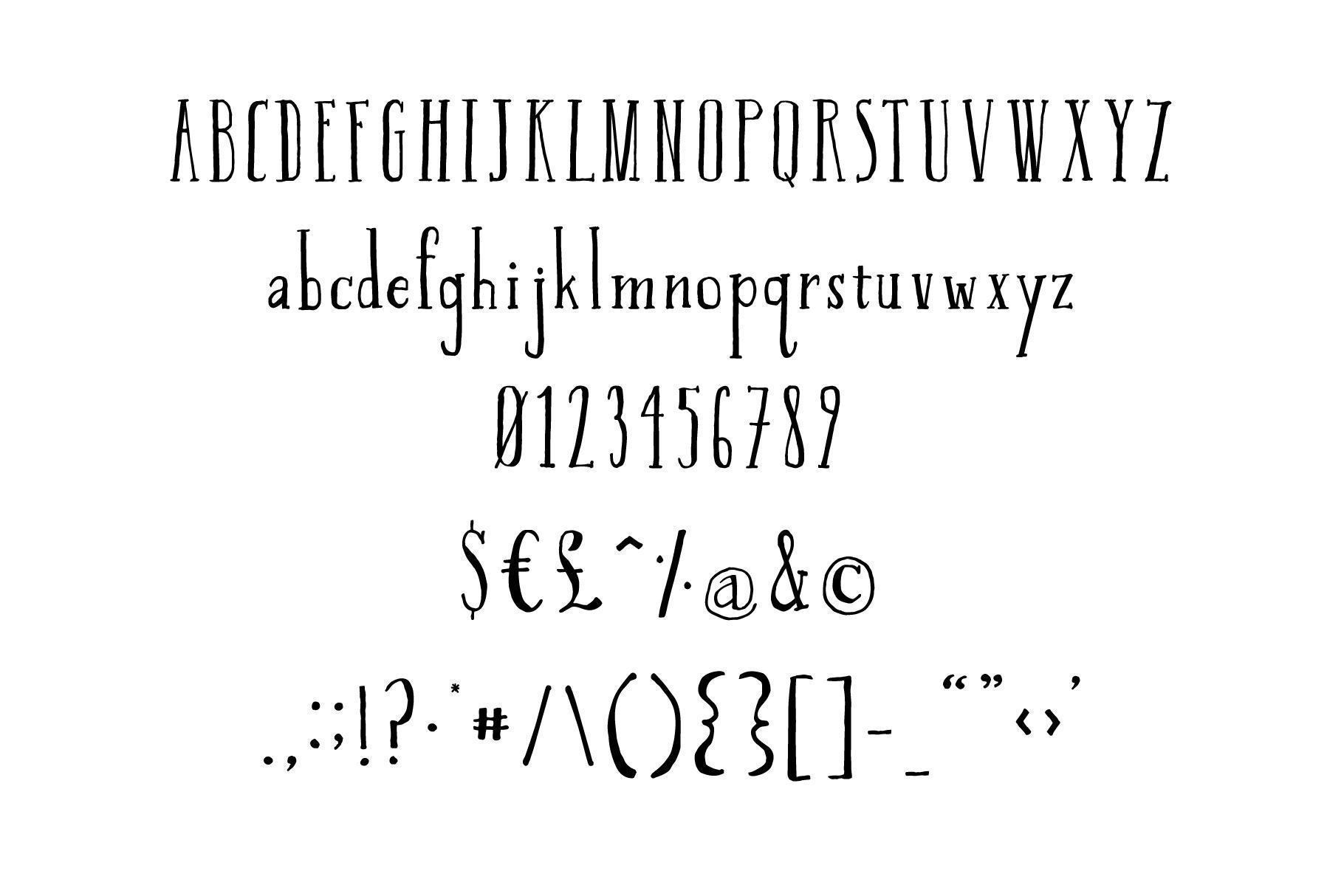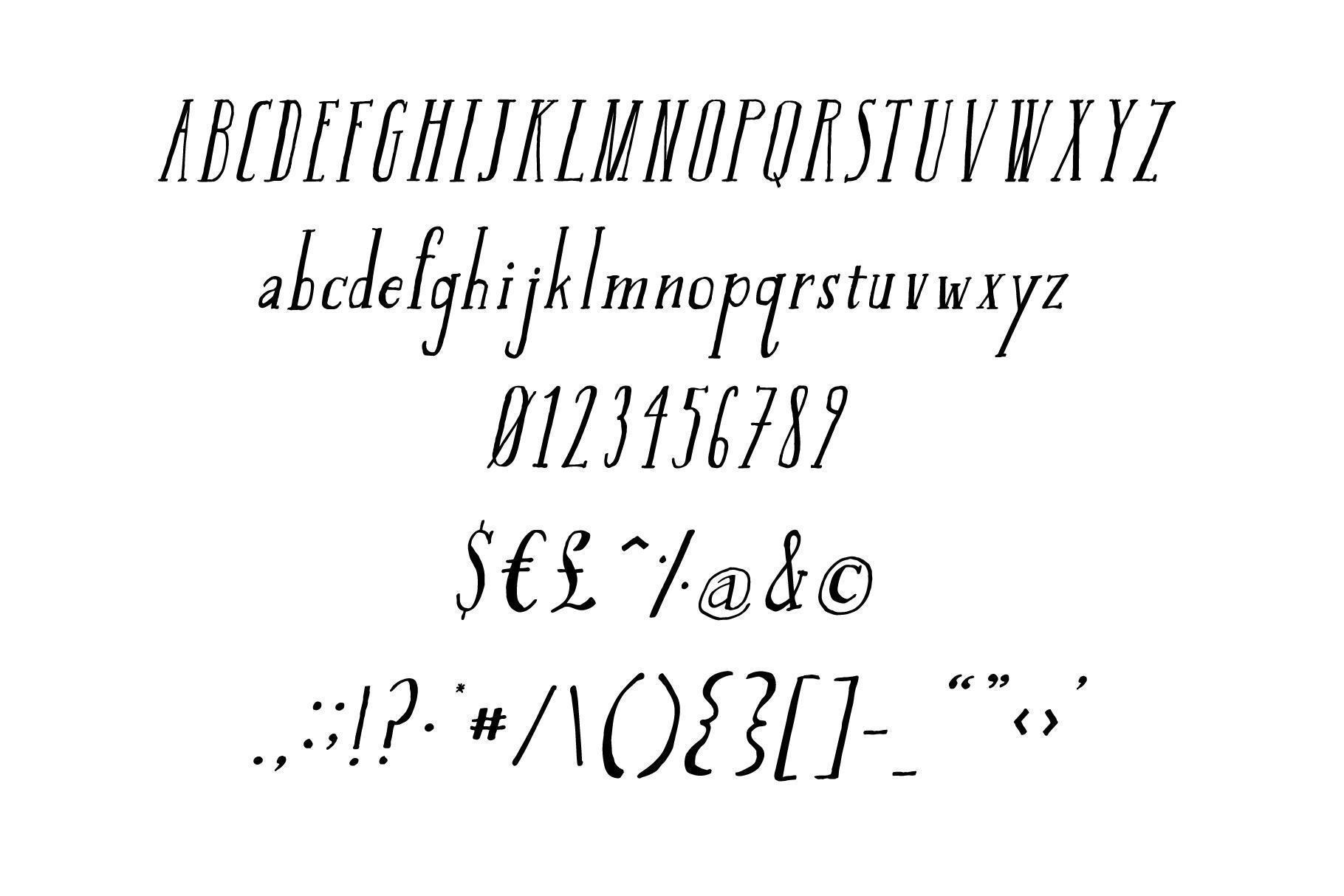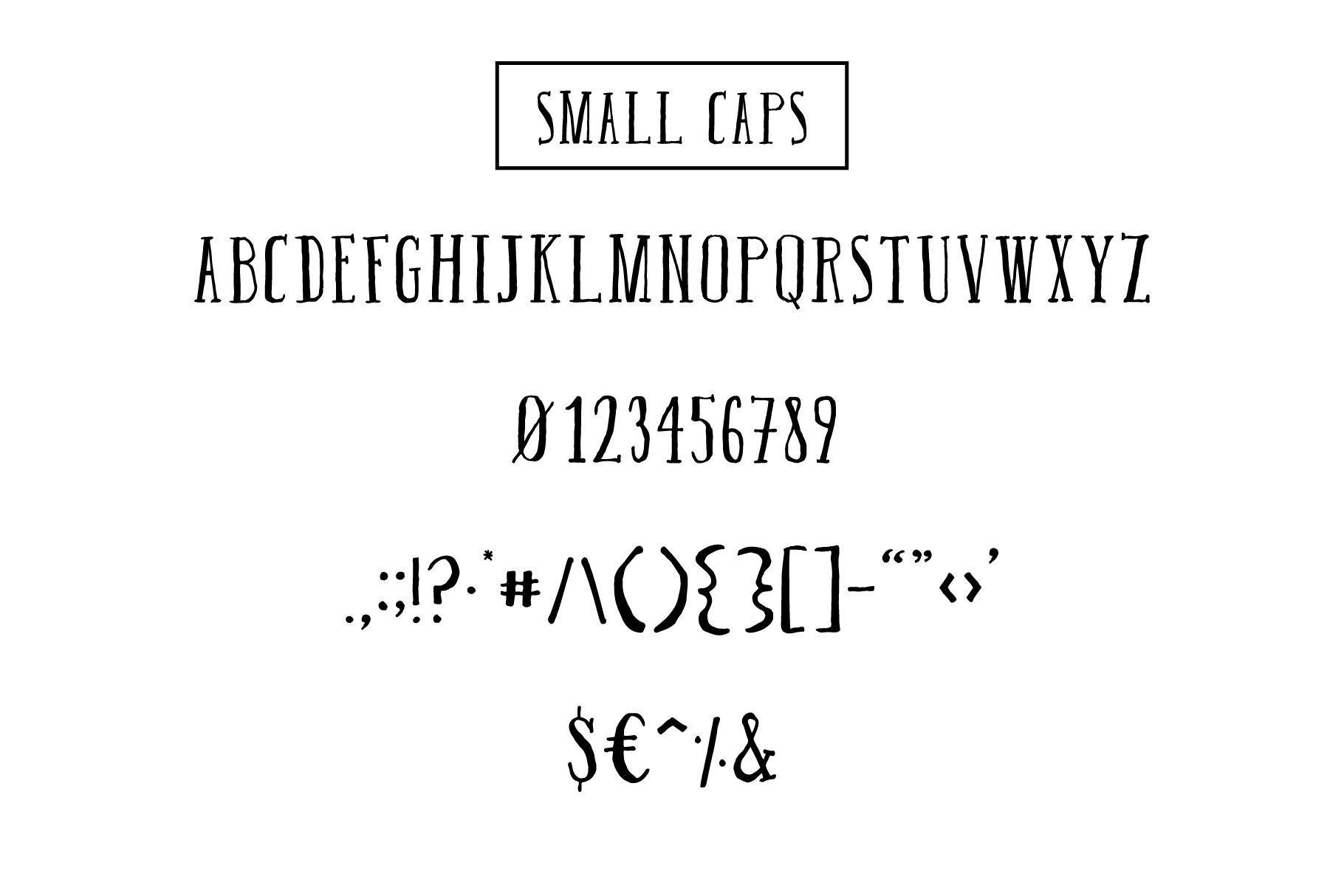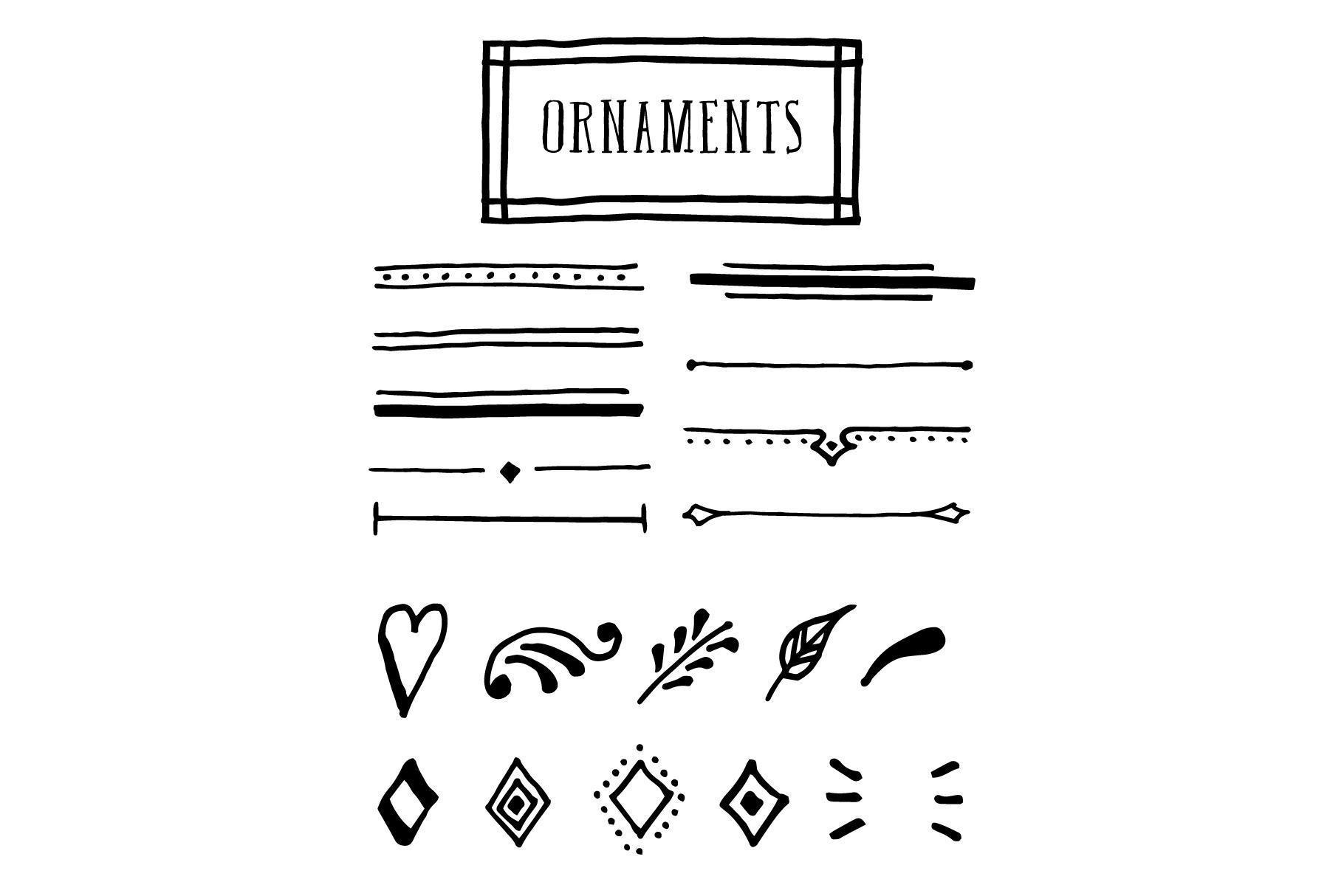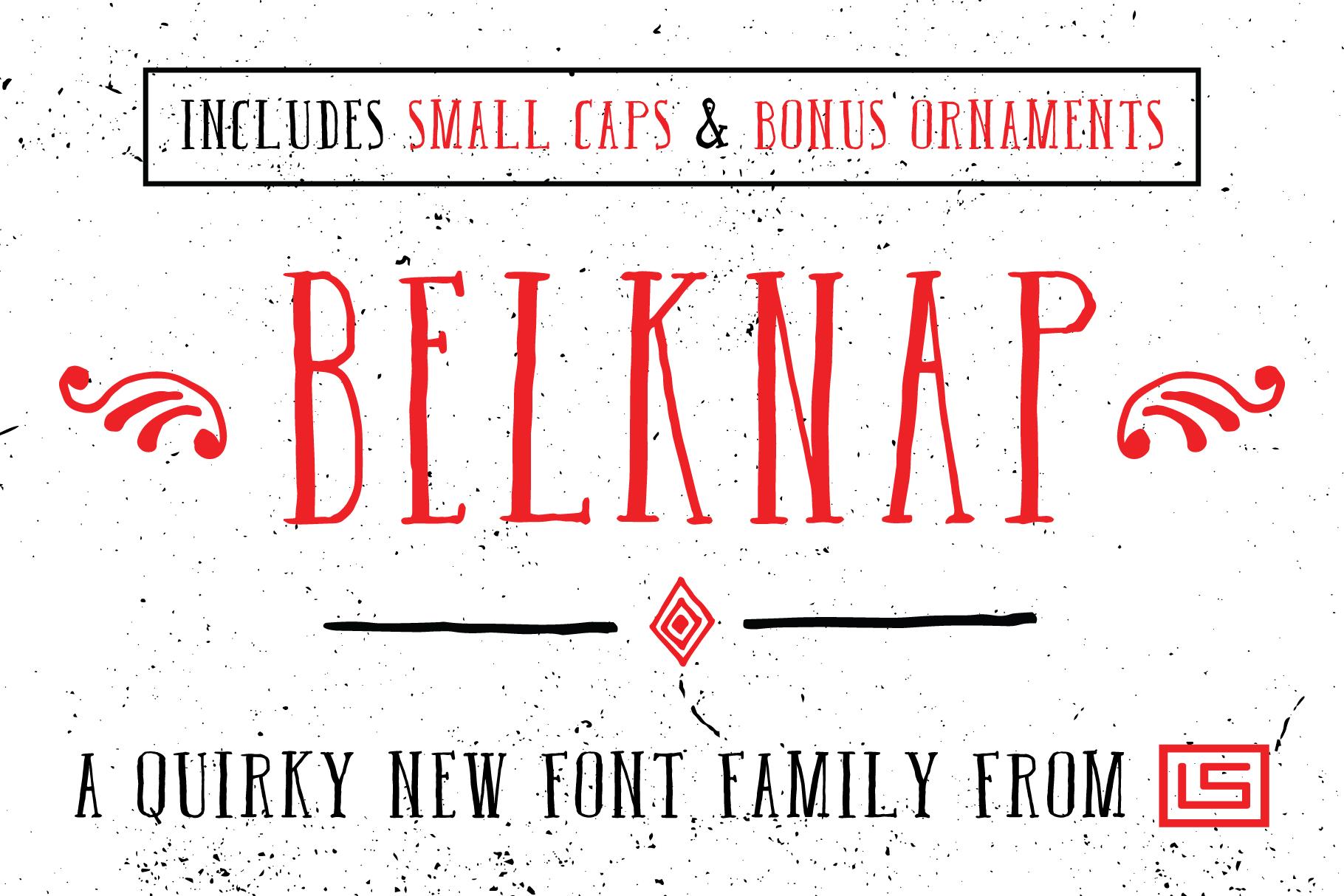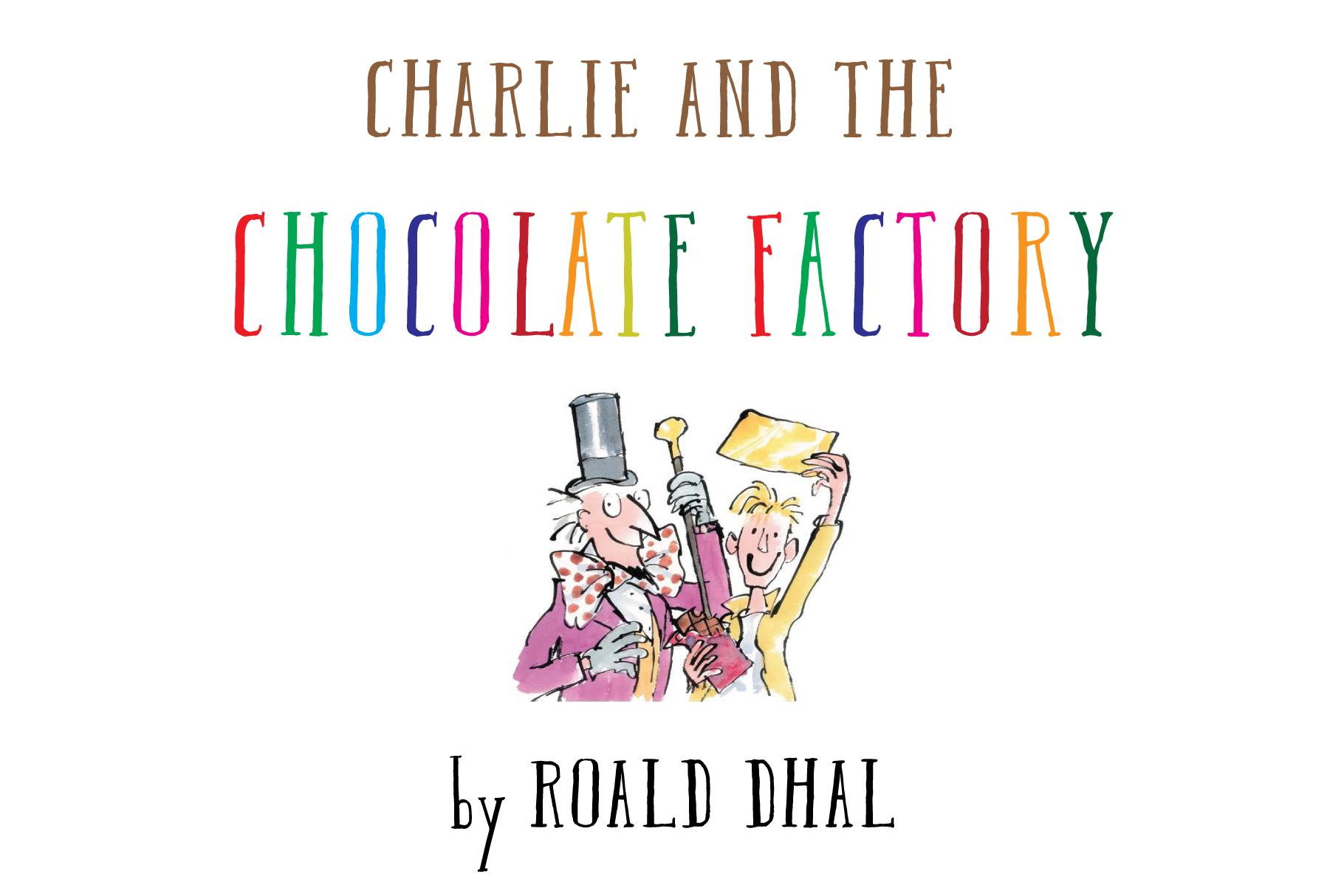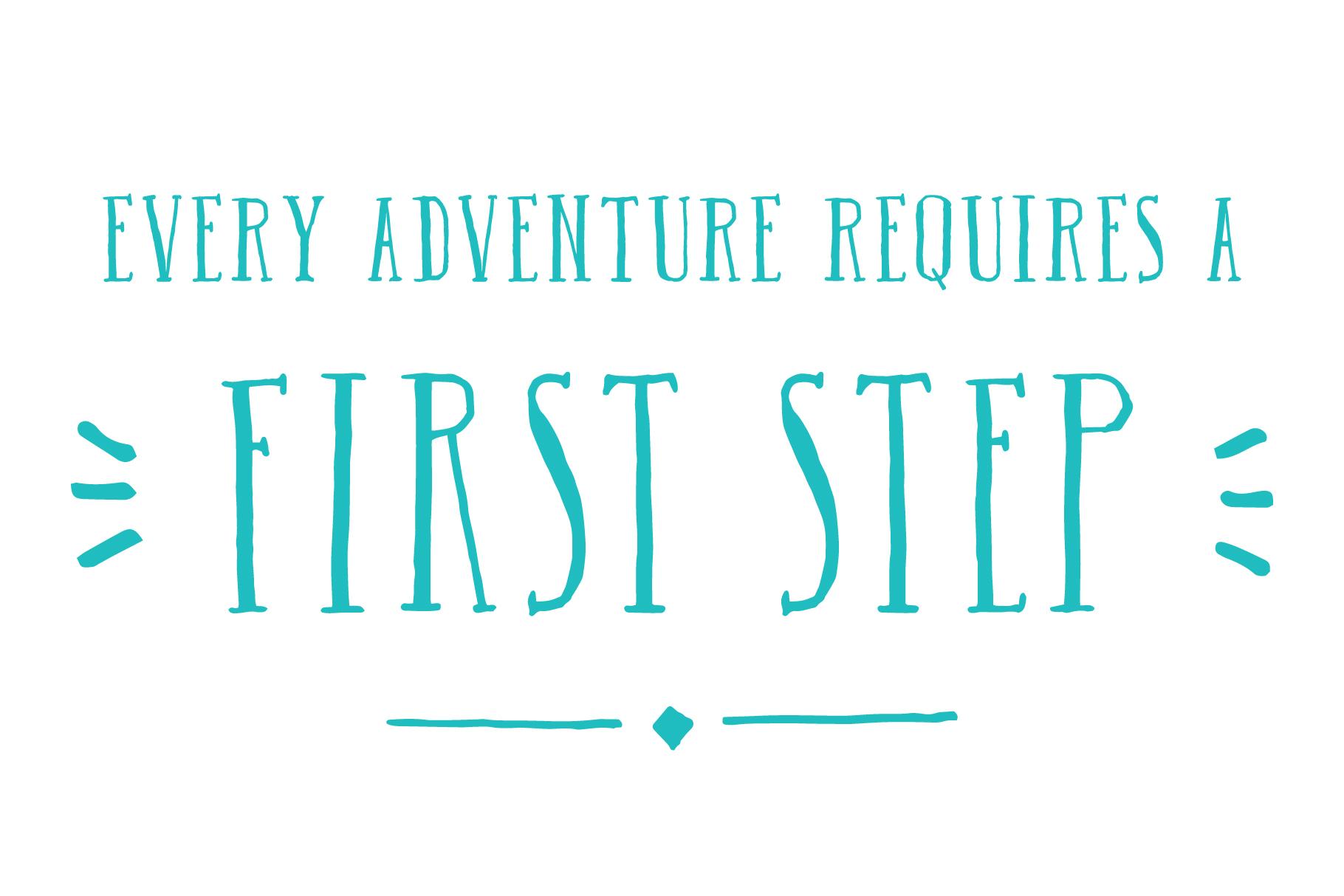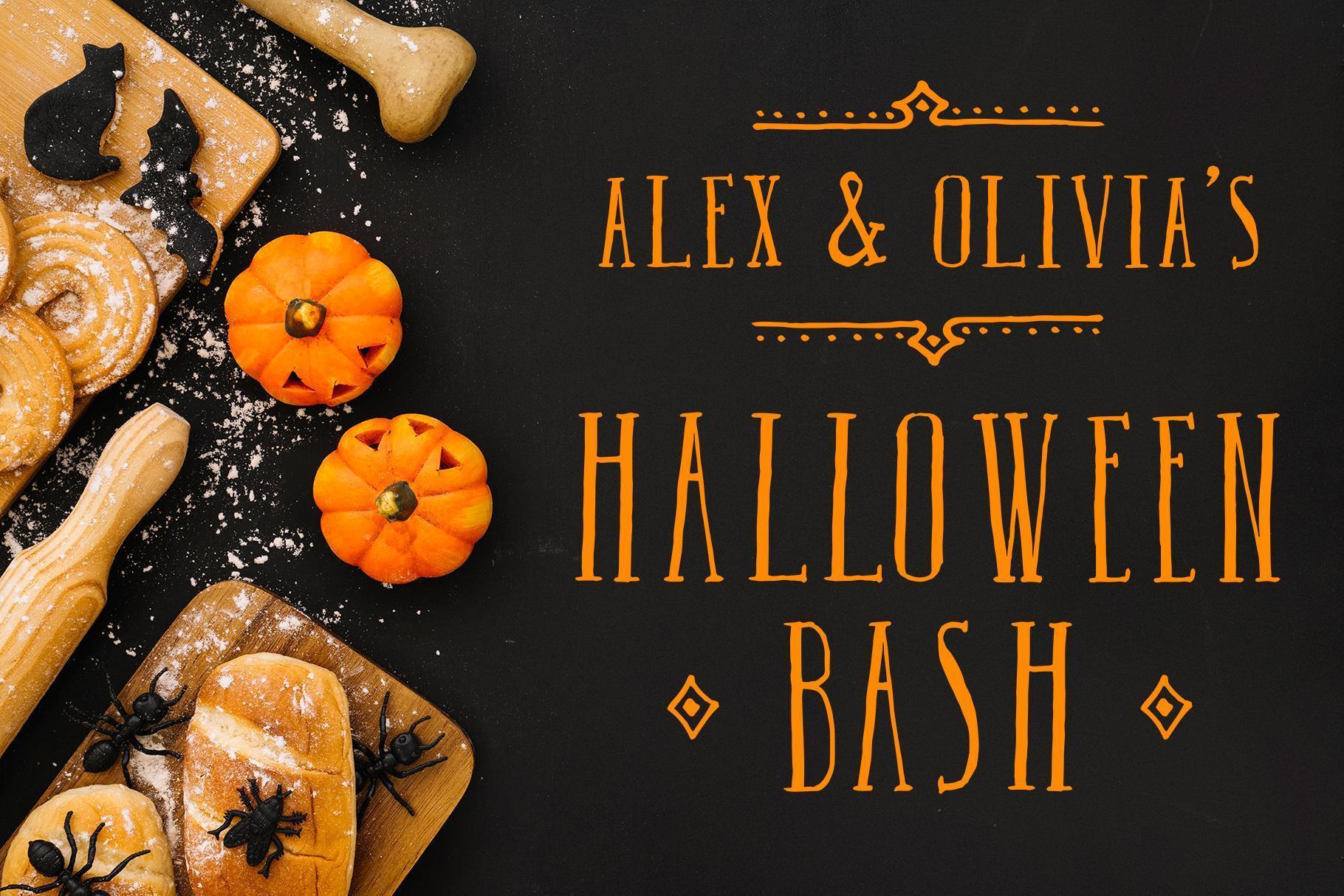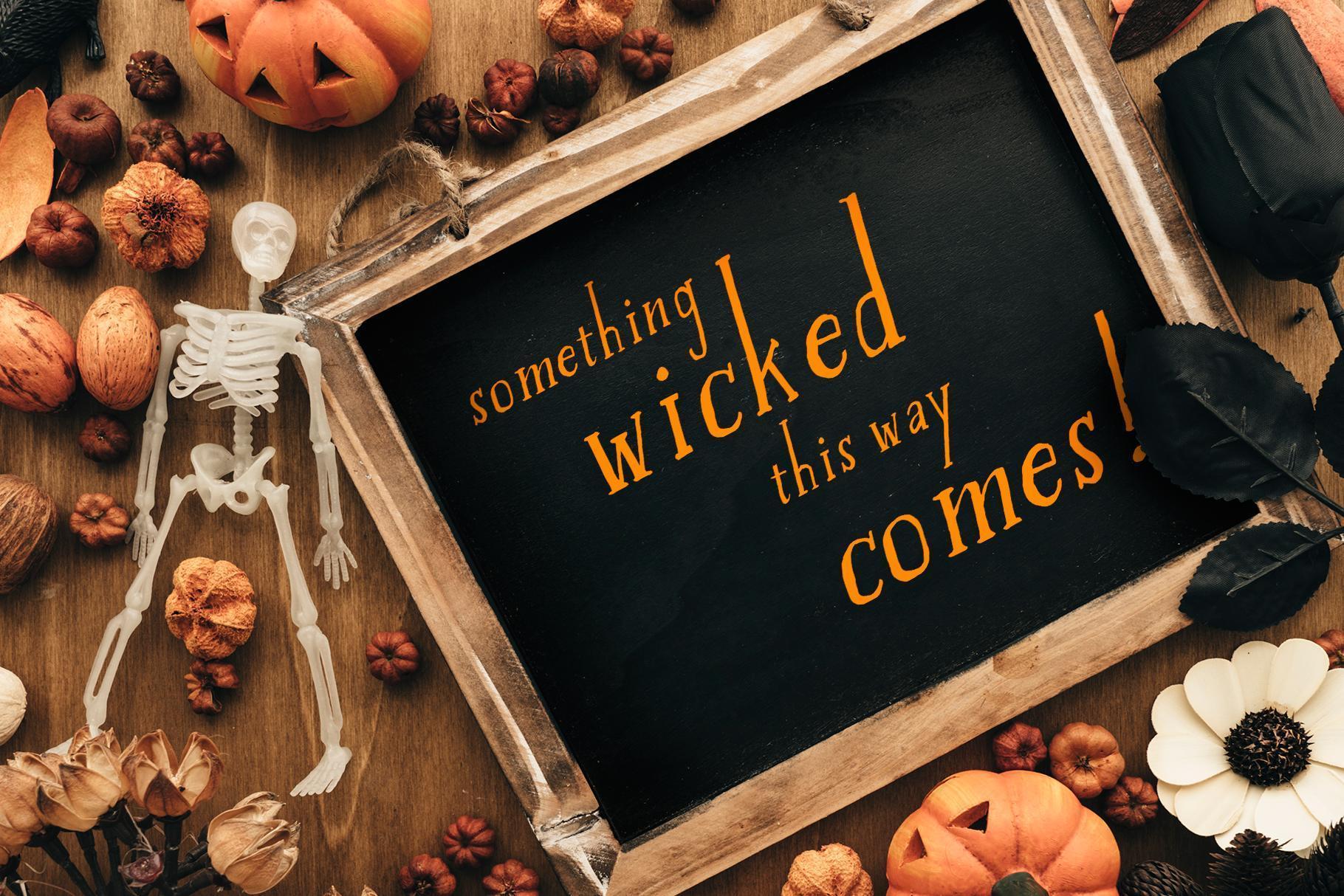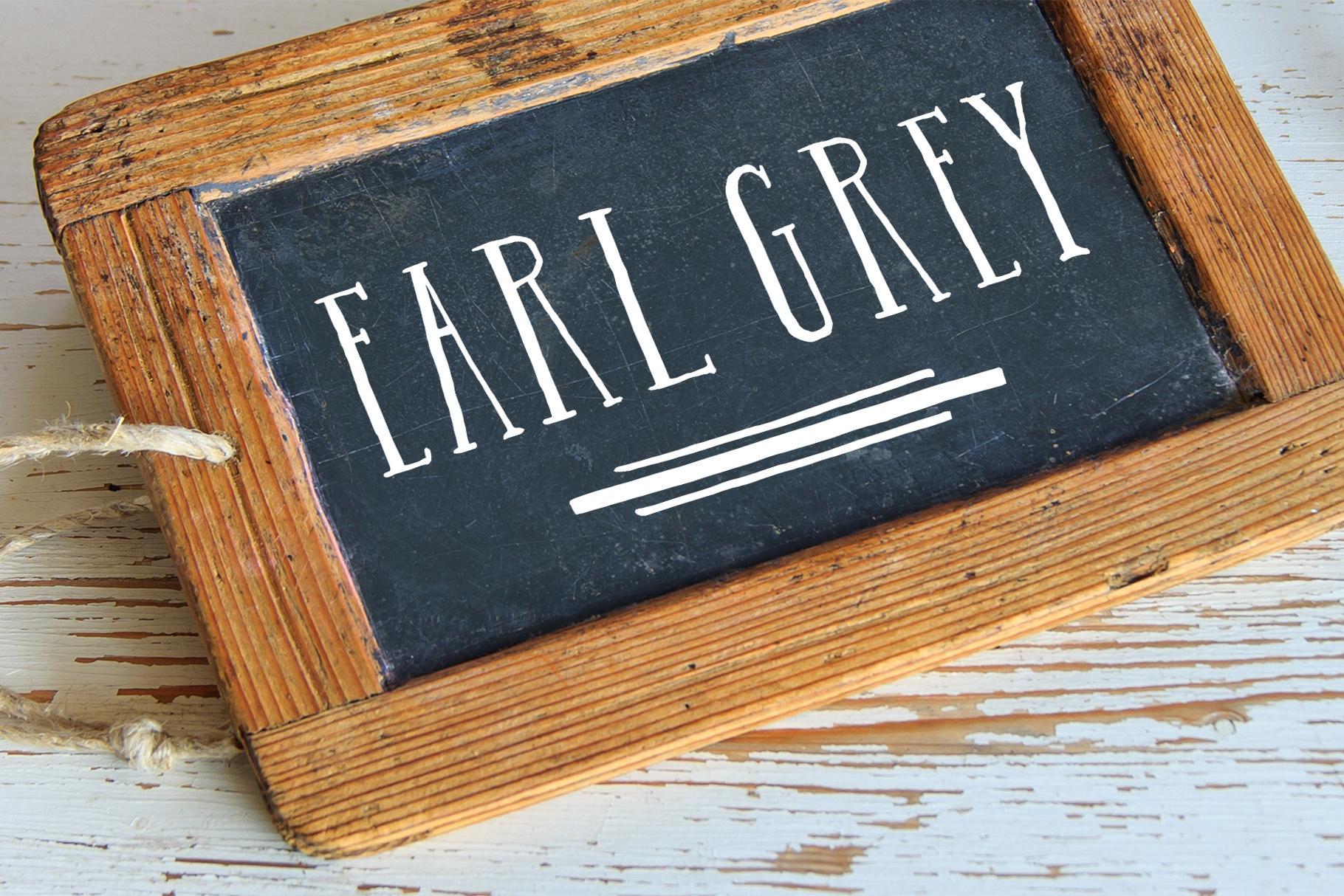
Belknap Cover
Charlie and the Chocolate Factory book cover
Halloween invitation with photo of pumpkins and baked goods
Ginger beer packaging
Inspirational quote
Earl Grey written on chalkboard
Ray Bradbury title on board sitting on wood table covered with Halloween decorations
Children's book cover
Stephen King's The Dead Zone black and white cover
Belknap_Character_Set
Belknap Font Family
Belknap is a beautifully hand-drawn and versatile display font family. It consists of carefully drawn characters with rough edges and a semi-wobbly look that makes it a bit of a chameleon – evoking humor, fantasy or drama depending on it’s context. It’s tall, lanky caps and erratic lowercase characters have been painstakingly spaced and kerned to flow beautifully as a single typeface. Belknap can be used in a wide variety of projects including: book covers, holiday themes, inspirational quotes, packaging, logos, and more!
Belknap Regular
Belknap Italic
Belknap True Small Caps
You’ll also get a set of 20 ornaments made to use with Belknap or any other work you see fit!